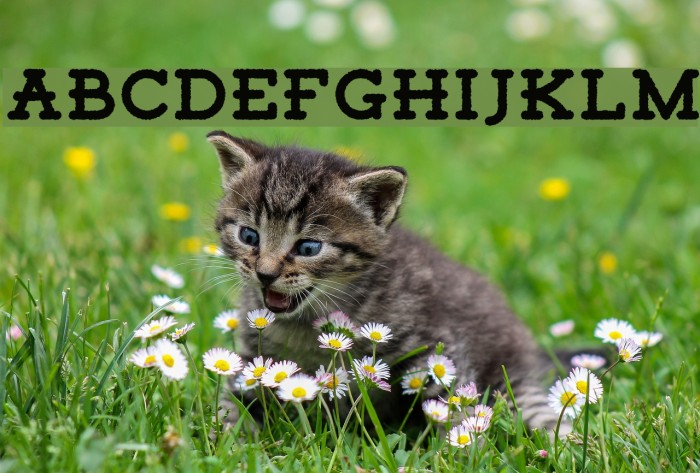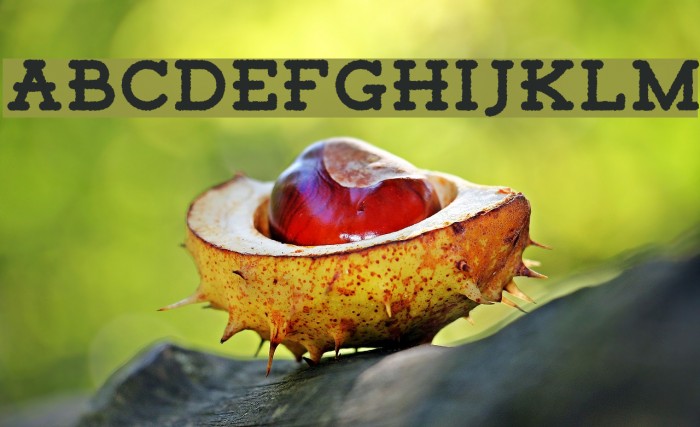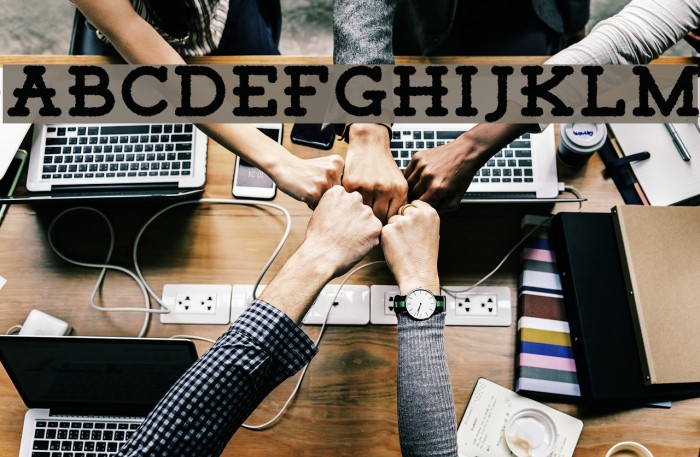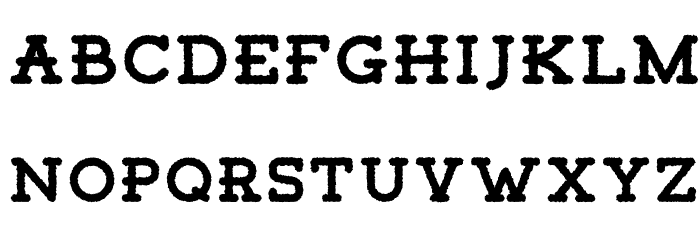
TigrealFree-Rough Font
This font features a bold, rough texture that gives it a rugged and vintage appearance. The uppercase letters are prominently displayed with a distressed effect, adding character and a handcrafted feel. The strokes are thick and consistent, providing a strong presence. The font lacks lowercase letters and numerals, focusing solely on uppercase characters. The rough edges and irregularities in the design contribute to its unique style, making it suitable for projects that require a rustic or industrial look. The font's boldness and texture make it stand out, ideal for eye-catching headlines or branding materials.
A bold, rough-textured font with a vintage, handcrafted appearance.
• Proposed Projects: Ideal for vintage posters, rustic branding, industrial-themed designs, and eye-catching headlines.
• Category: Decorative/Display
• Bold: Yes
• Italic: No
• Weight: Bold
• Width: Normal
• Character Spacing: Normal
• Contrast: Low
• Overall Style: Vintage
• Use Case: Headlines, Logos